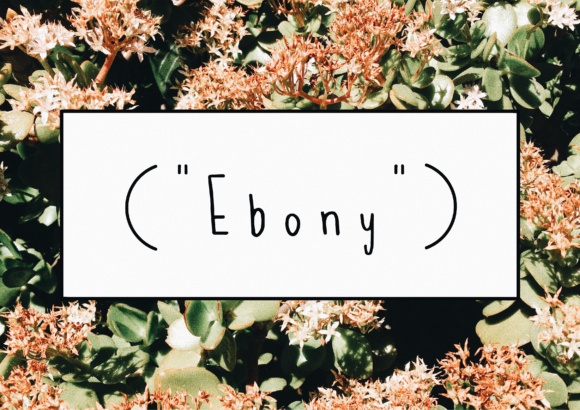
Discover the Ebony Font, a captivating and charming script that will add a touch of elegance to your designs. Its organic, hand-written style evokes a sense of spontaneity and authenticity, making it perfect for creating beautiful invitations, heartfelt greeting cards, and enchanting logos.
Unleash your creativity with the Ebony Font and express yourself with a unique touch. Its graceful lines and whimsical curves will captivate your audience, leaving an unforgettable impression. Whether you're a professional designer or simply seeking to elevate your personal projects, the Ebony Font is the perfect choice for adding a dash of charm and sophistication.
Indulge in the beauty of the Ebony Font, a script that speaks to the heart and brings your designs to life. Each character dances upon the page, carrying with it a story waiting to be told. Its versatility knows no bounds, making it an essential tool for designers of all levels.
Step into the world of the Ebony Font, where your imagination takes flight. Embrace the charm, the authenticity, and the endless possibilities that await you within its graceful curves. Let your creativity soar and create designs that will leave a lasting impression.